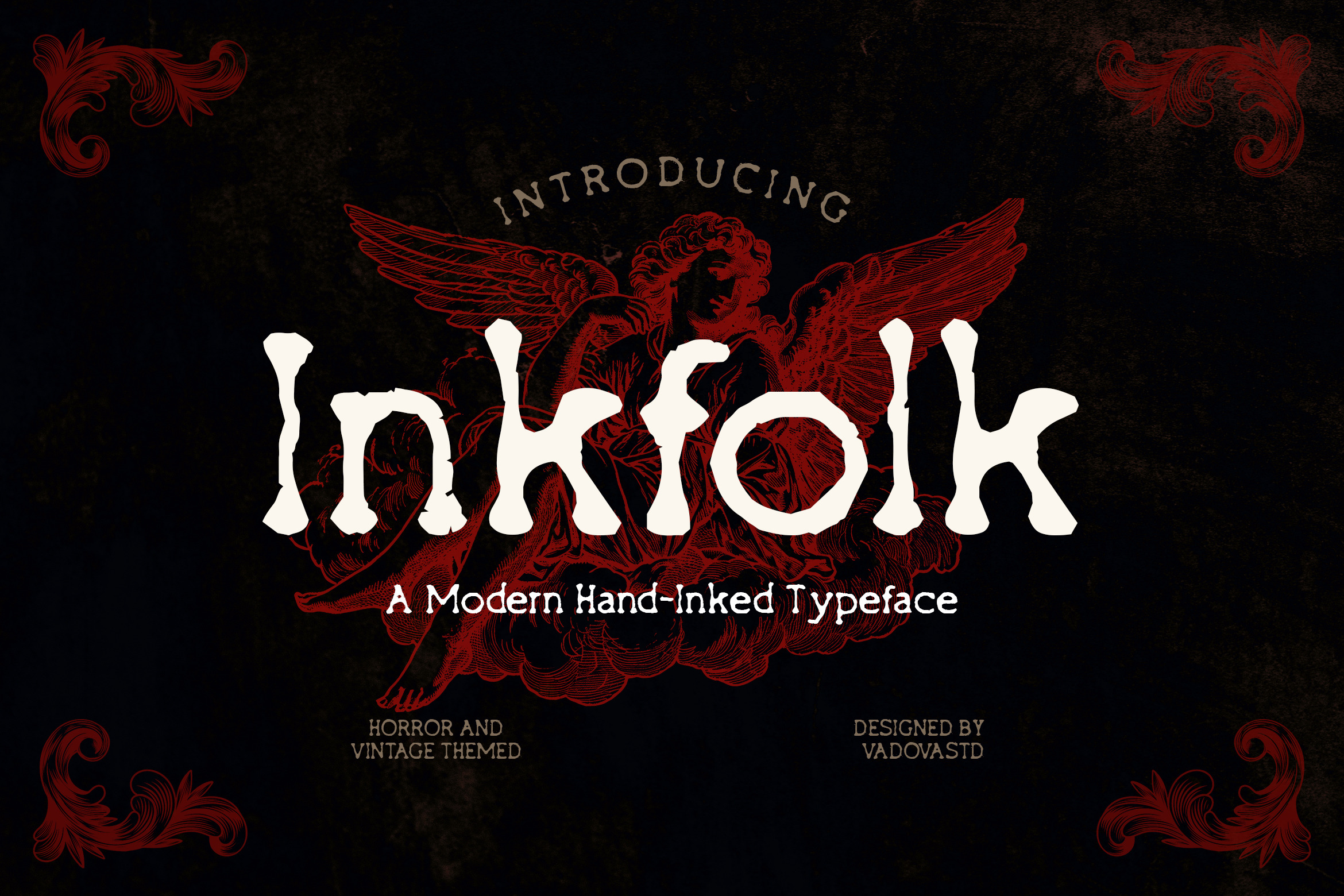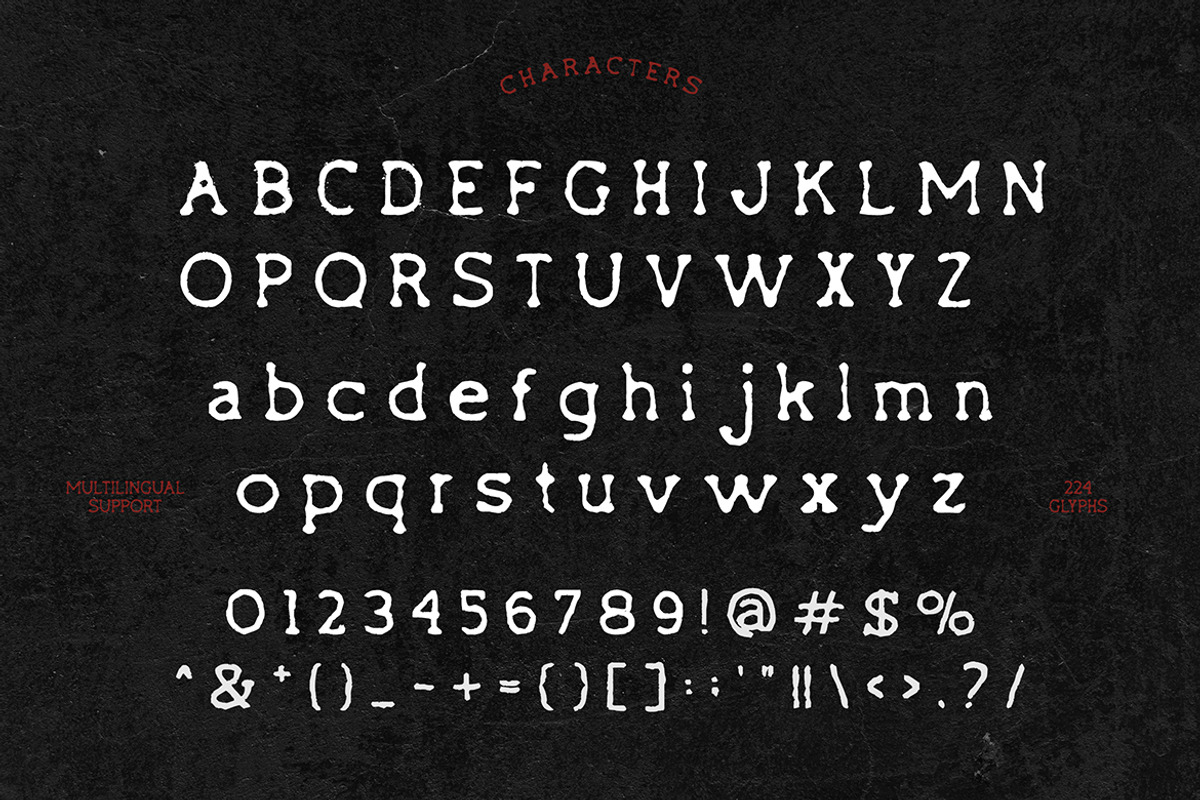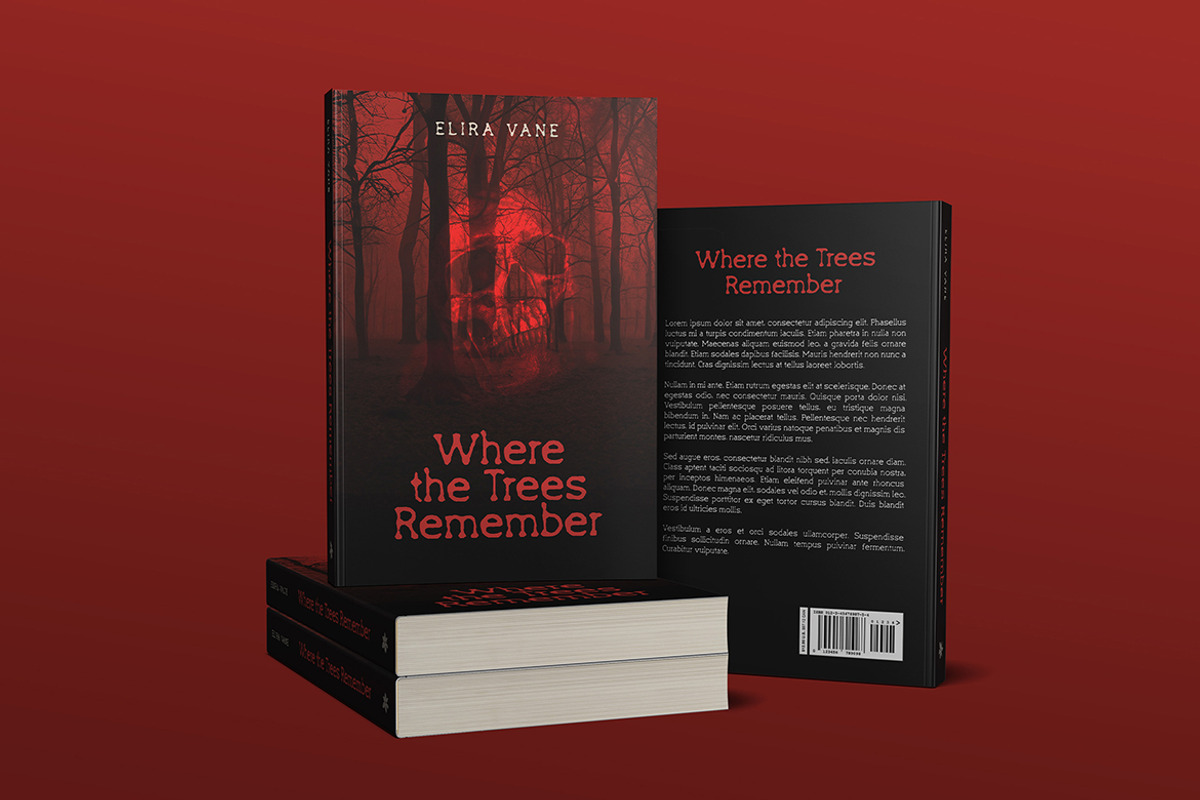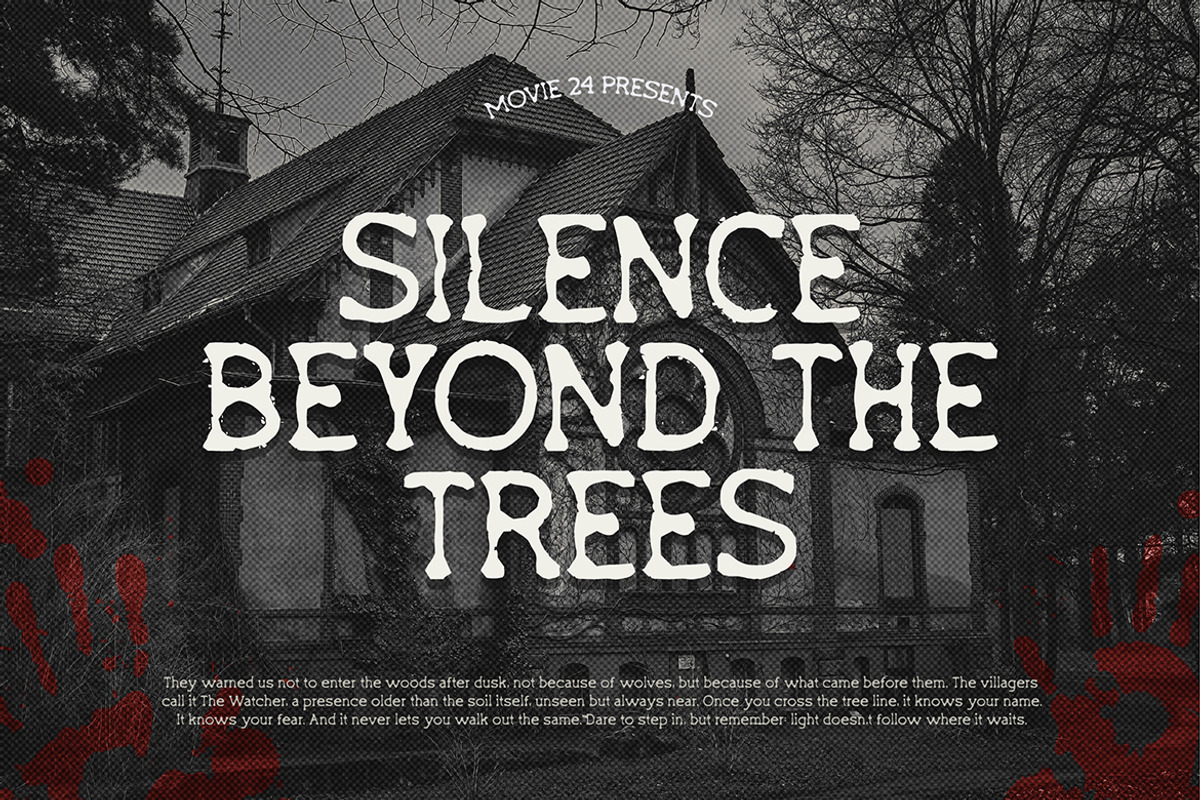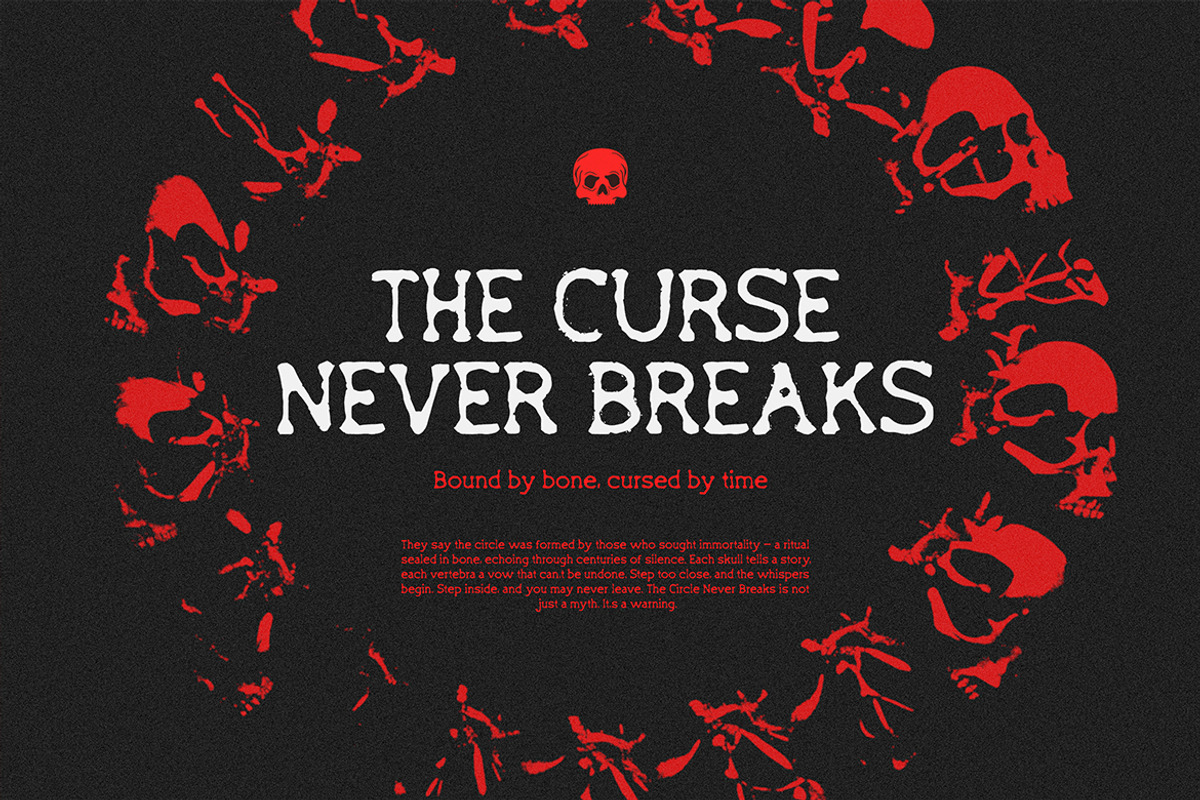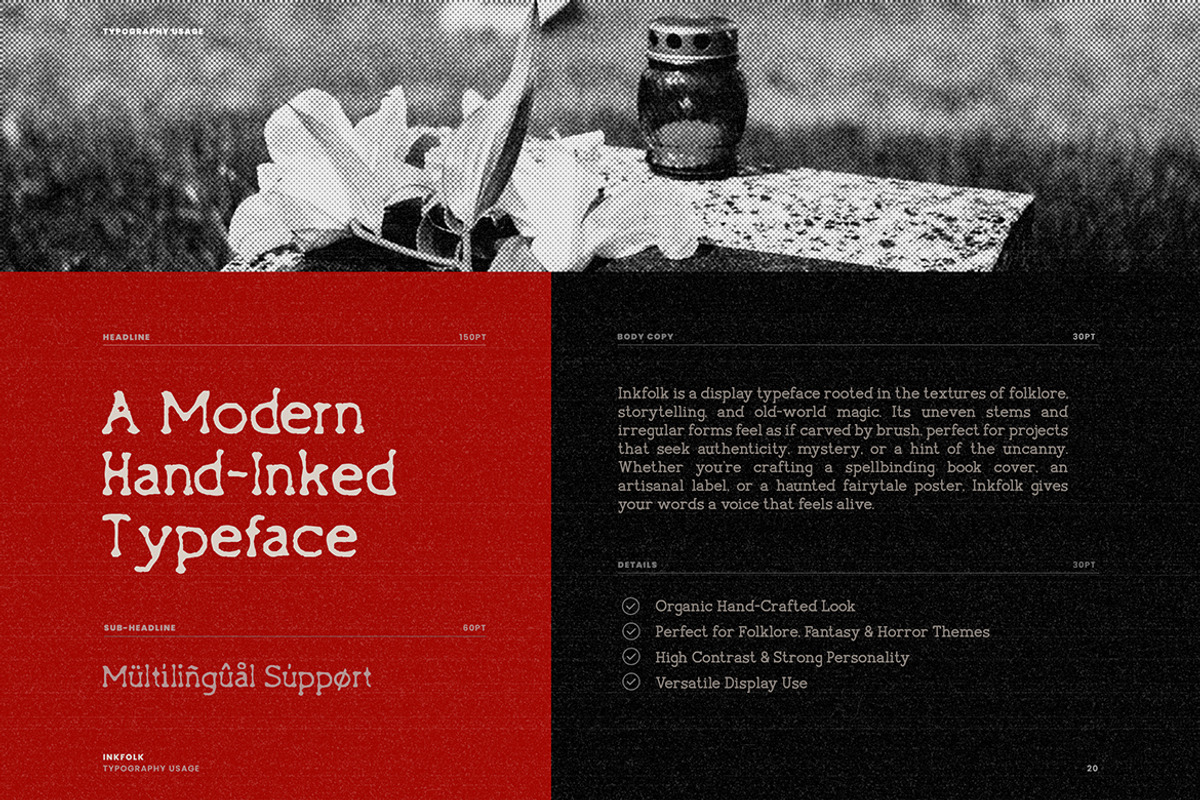
Inkfolk Modern Hand-Inked Font
Inkfolk is a hand-inked serif typeface that blends vintage horror aesthetics with expressive print texture. Inspired by folklore, gothic fiction, and classic horror posters, Inkfolk delivers a gritty and emotional typographic style that feels raw, eerie, and authentic.
Each character is imperfect by design, echoing hand-pressed printing and traditional inking techniques. Its bold presence and expressive form make it a standout choice for horror titles, dark branding, occult visuals, and vintage-themed projects. From retro thriller posters to Halloween party invites and eerie product packaging, Inkfolk evokes an old-world mystique while remaining strikingly modern.
Inkfolk includes uppercase and lowercase letters, numerals, symbols, and multilingual support. With 224 glyphs, it’s a versatile tool for designers creating anything from horror novels to music artwork.
- Horror and folklore-inspired serif display
- Hand-inked texture with rough organic edges
- 224 glyphs including symbols and multilingual support
- Bold dramatic aesthetic for standout titles
- Works beautifully for posters, branding, and vintage themes
- Multilingual support for global storytelling
- Unique handmade look with print-like imperfections
- Ideal for horror branding, fantasy books, and retro art
Relevance and Use Cases is horror titles, dark branding, occult visuals, and vintage-themed projects. From retro thriller posters to Halloween party invites and eerie product packaging, Inkfolk evokes an old-world mystique while remaining strikingly modern.
Make a bold, hand-inked statement with the eerie charm of Inkfolk.